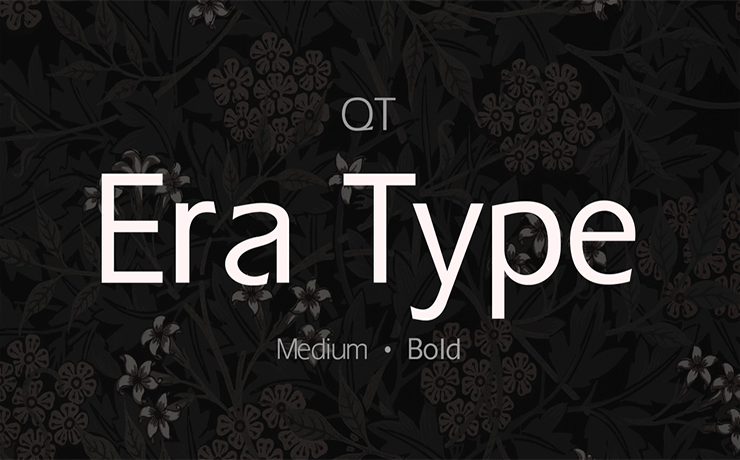
Era Type Font is a beautiful sans serif font family that was created with the humanist aesthetic in mind. It gives every design a really stylish and memorable look.
This awesome font was designed and published by Albert Boton and Albert Hollenstein firstly in 1976.
With a very slightly slanted nature and linear characters, Eras is by far the most attractive typeface. Therefore, the purpose behind its creation is to use it for small and large projects.
That is why at present there are many companies where this remarkable font is used. So, if you are looking for it, I assure you that it gives a charming look.
You clearly see that it has highly readable shapes, a slight tilt, and a large X height. That is why it is perfect for every project.
Perfect choice for crafting a logo, developing a website template, book covers, product packaging, hoardings, posters advertisement, brochure layout, labels designs, and many other projects.
This font pack comes in two styles medium and bold.